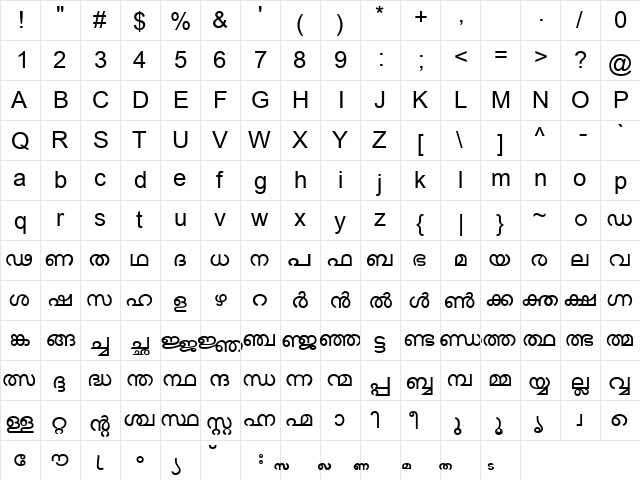
Tulasi Normal
Design Context for Tulasi Typeface
Tulasi offers clean, dependable letterforms without strong stylistic allegiance, making it a practical choice for designers who need flexibility.
Pro Tip: Pair Tulasi with a font of contrasting weight or personality to build a more expressive typographic hierarchy.